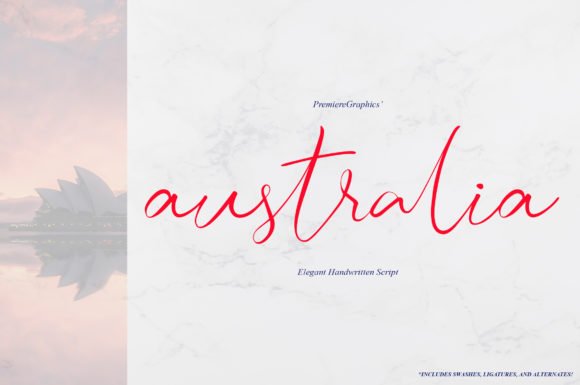
A Moment of Inspiration: When Typography Meets Art
Have you ever found yourself lost in a world of words, mesmerized by the elegant strokes and curves of a handwritten script? It’s a moment we all know and love – the spark that sets our creative minds ablaze. For designers, this moment is often the result of a perfect combination of typography and art.
Enter the Australia Script Font, a beautifully crafted script font designed to evoke the same feeling of authenticity and elegance as a handwritten note from a loved one. With its thick-to-thin strokes, this font is the perfect addition to any design project, from cosmetics and fashion blogs to invitation cards and photography. Whether you’re looking to add a touch of sophistication or whimsy, the Australia Script Font is sure to bring your designs to life.
Australia Script Font Key Features
- Font Family: Australia Script, with a unique, handwritten style
- Unique Characteristics: Includes ligatures, swashes, and flourishes to create a personal and elegant feel
Australia Script Font Review
Overall, I think the Australia Script Font is a nice addition to any design project. It has a unique, handwritten feel that can add a touch of elegance and sophistication to your work. ✨
Here are some of the things that work well with this font:
- Its fluid, cursive lines make it perfect for creating titles, headings, and other attention-grabbing text.
- The font’s dynamic feel can add a sense of movement and energy to your design.
- It’s a great choice for creating a sense of warmth and approachability in your design.
- The font can be difficult to read in smaller sizes, especially in digital formats.
- It may not be the best choice for body text, as it can be quite dense and overwhelming.
- The font’s irregularities can make it challenging to pair with other fonts.
Overall, I think the Australia Script Font is a great choice for designers who want to add a touch of personality and whimsy to their work. Just be sure to use it judiciously and in the right context.
For the most effective use of the Australia Script Font, use it for titles, headings, and quotes. This font is ideal for creating a rustic or vintage feel in your designs. Avoid using it for large blocks of text, as it can be difficult to read.